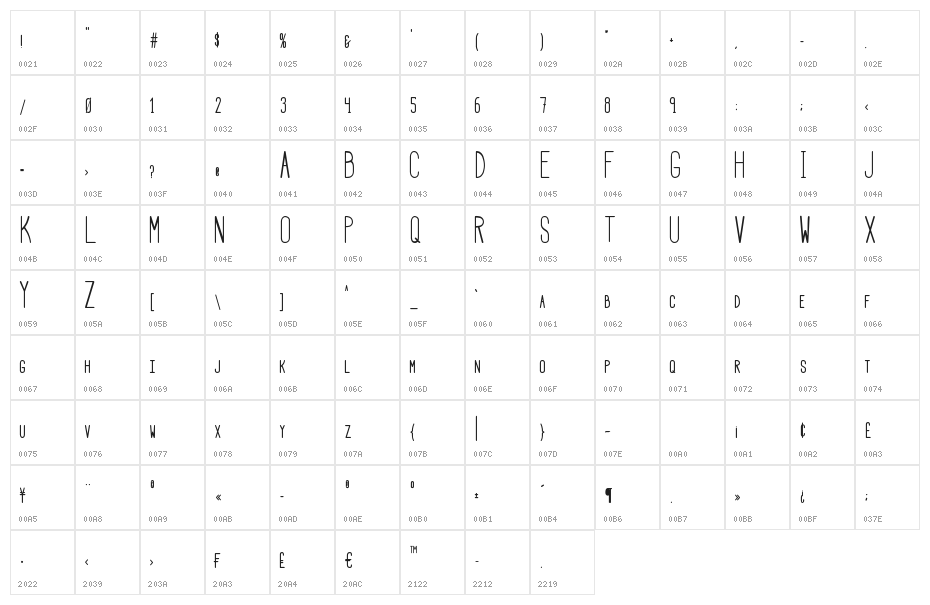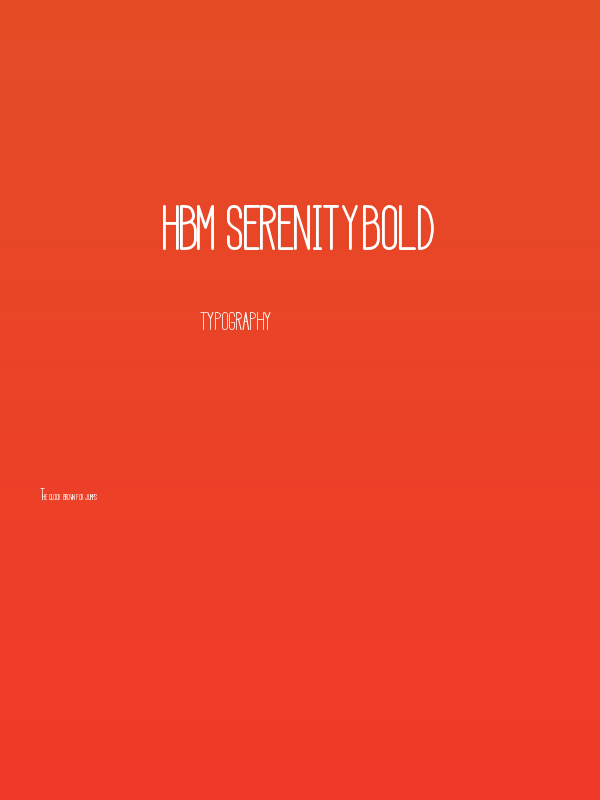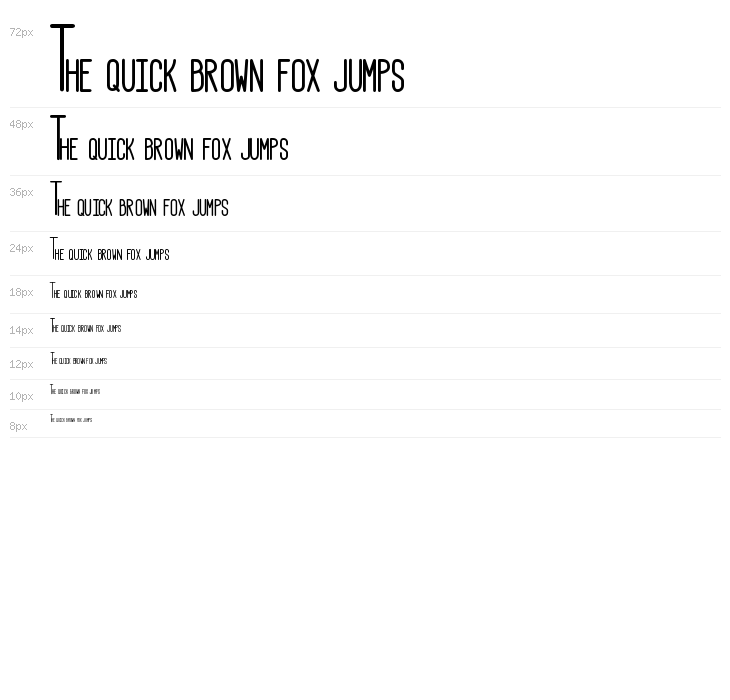
HBM Serenity Bold Font
HBM Serenity Bold Description
This font features a clean and modern sans-serif style with elongated letterforms that convey a sense of elegance and sophistication. The characters are uniformly structured, providing a consistent and harmonious appearance across both uppercase and lowercase letters. The numerals are distinct and clear, ensuring readability. Special characters are well-integrated, maintaining the font's overall aesthetic. The design is versatile, suitable for various applications where a contemporary and stylish look is desired.
Use CaseHeadlines, Logos, Branding
Proposed ProjectsIdeal for branding, editorial design, web design, and advertising where a modern and stylish appearance is needed.